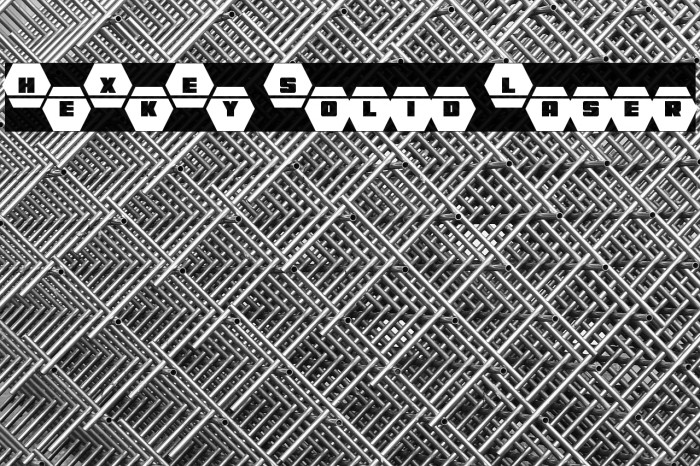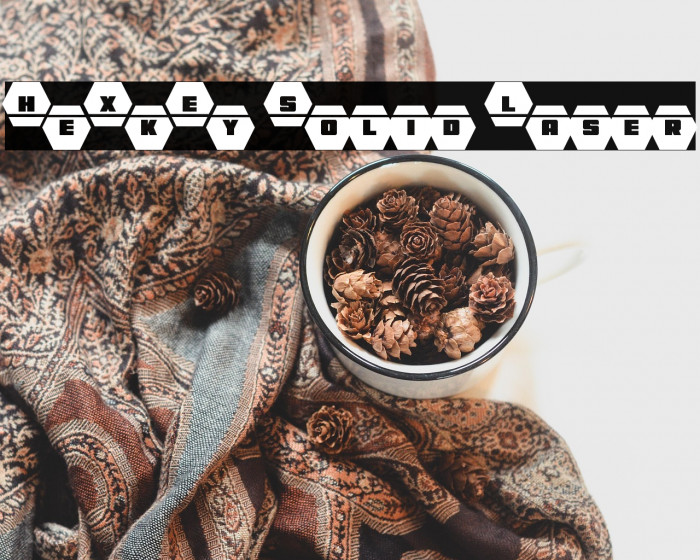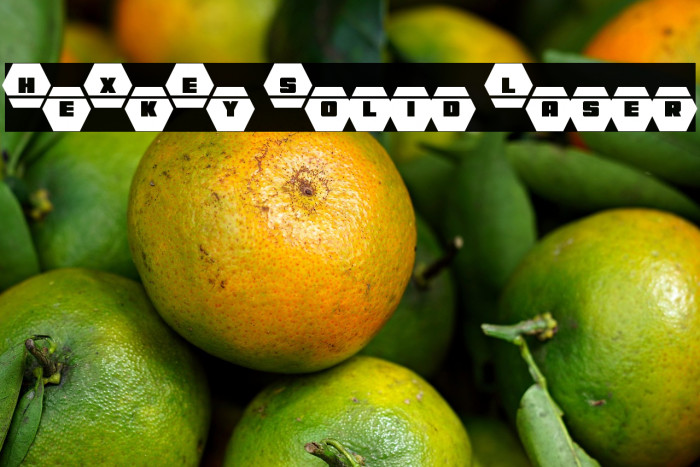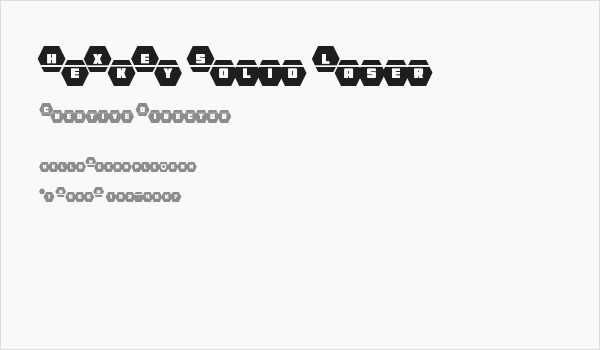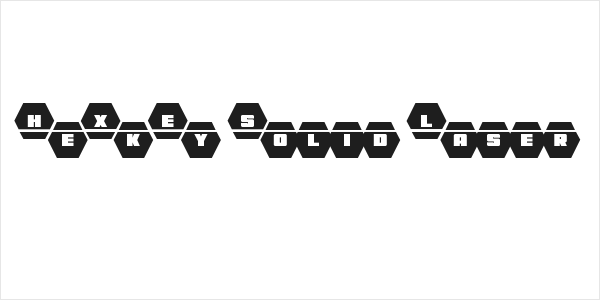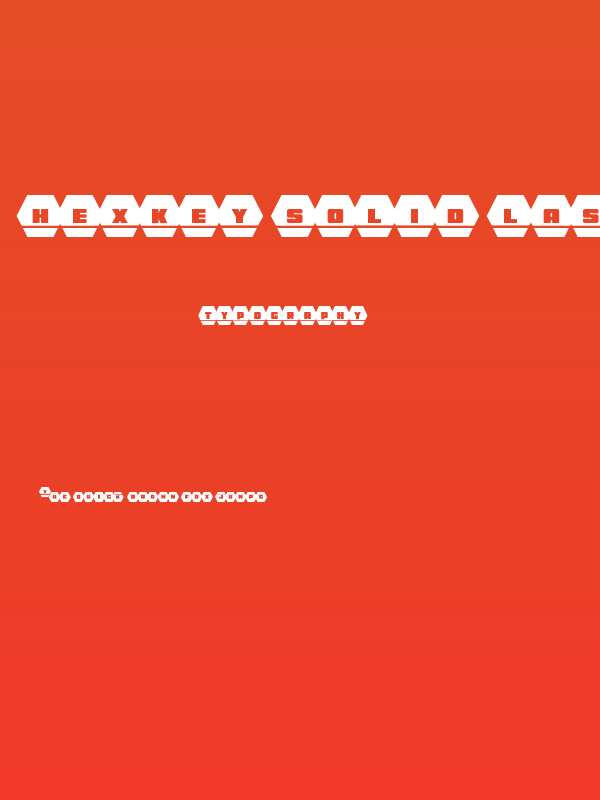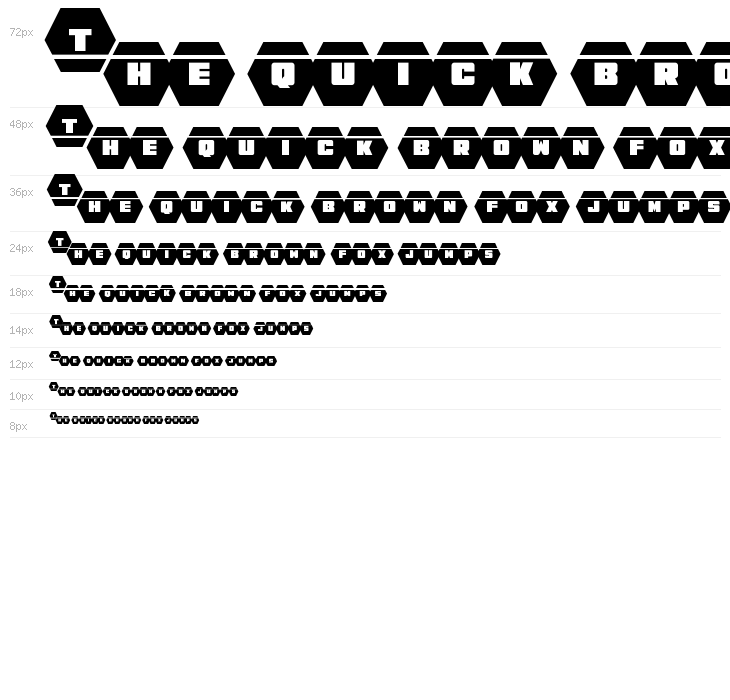
HeXkEy Solid Laser Font
HeXkEy Solid Laser Description
This font features a bold, geometric design with each character encased in a hexagonal shape, creating a futuristic and industrial aesthetic. The characters are uniformly bold, with consistent stroke thickness and sharp angles that give a sense of strength and modernity. The uppercase and lowercase letters, as well as numbers and special characters, maintain this hexagonal theme, ensuring a cohesive look across all glyphs. The font's unique style makes it stand out, with a strong visual impact that is both eye-catching and memorable.
| Overall Style | Futuristic, Industrial |
| Proposed Projects | Ideal for sci-fi themed projects, video game titles, tech branding, and futuristic posters. |